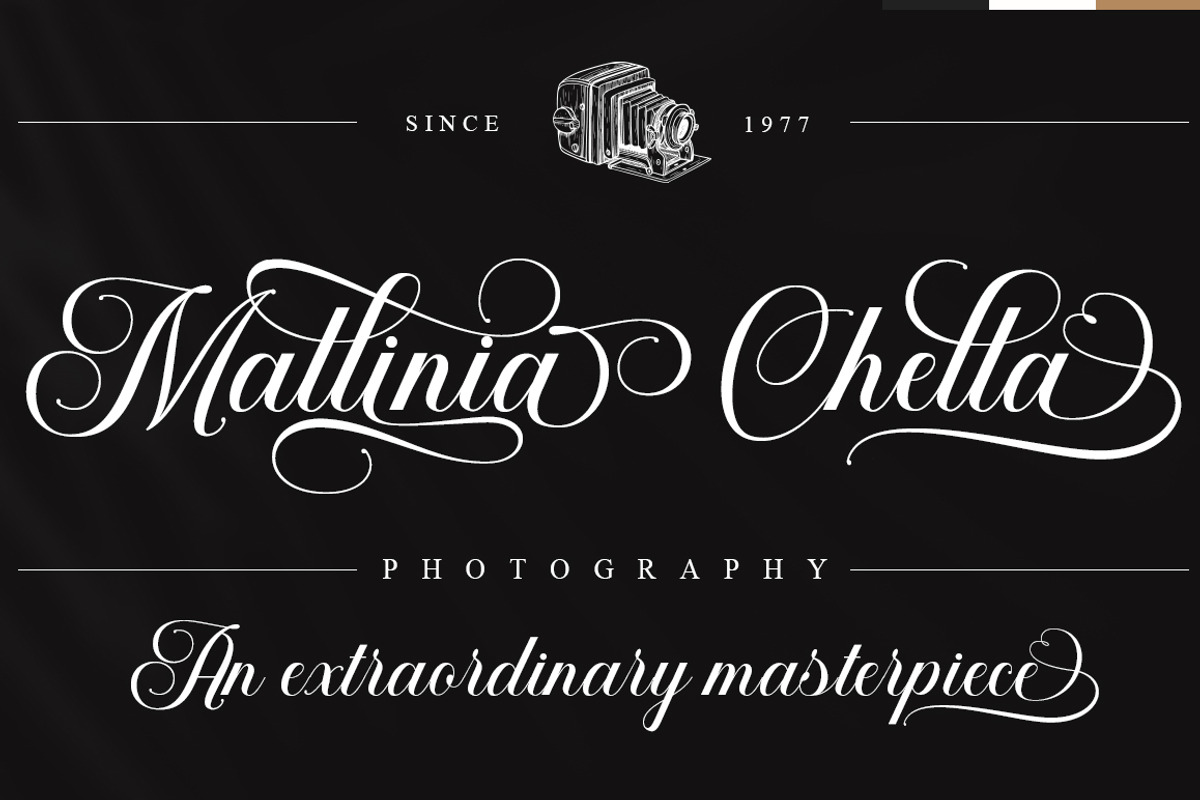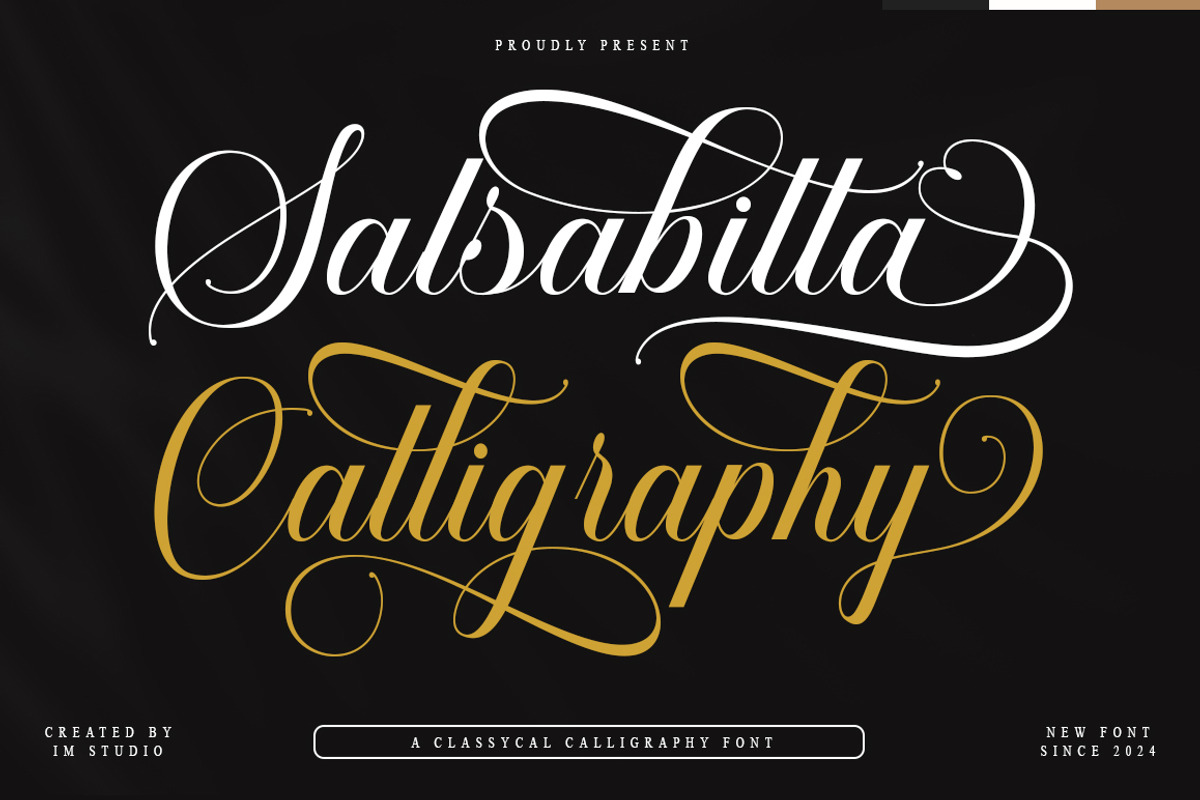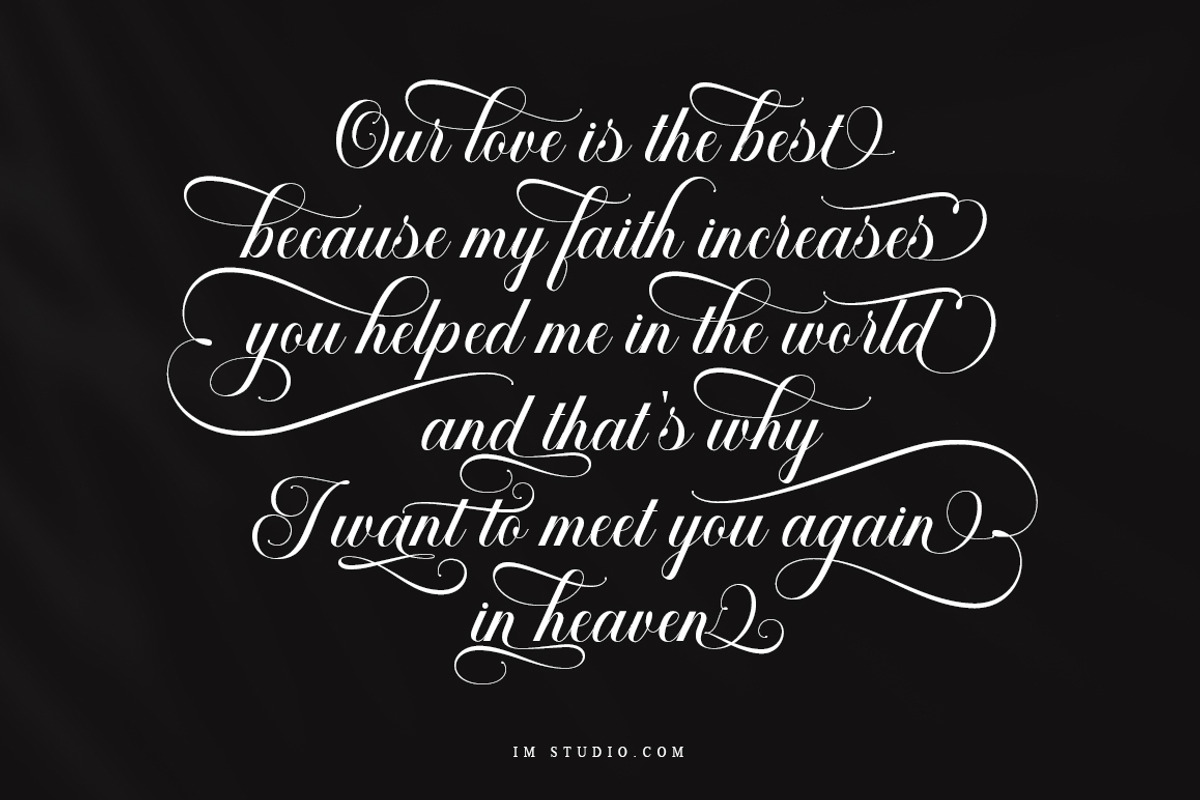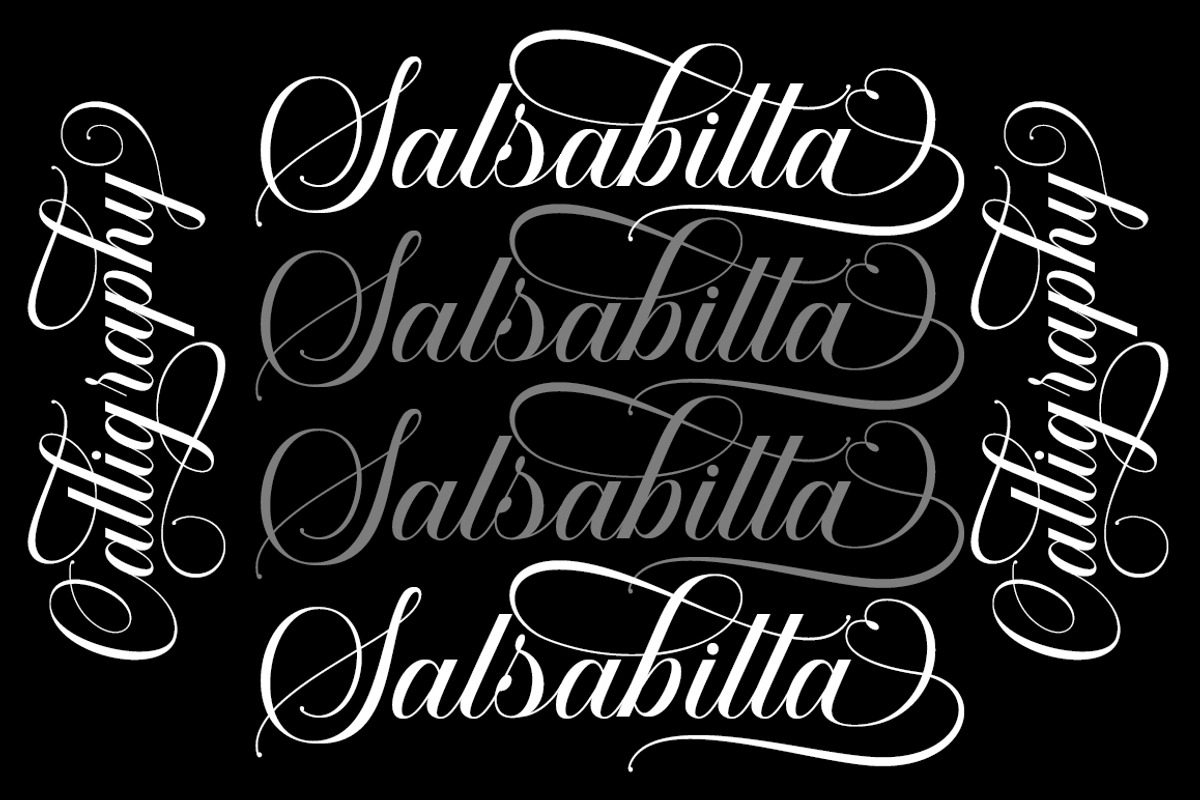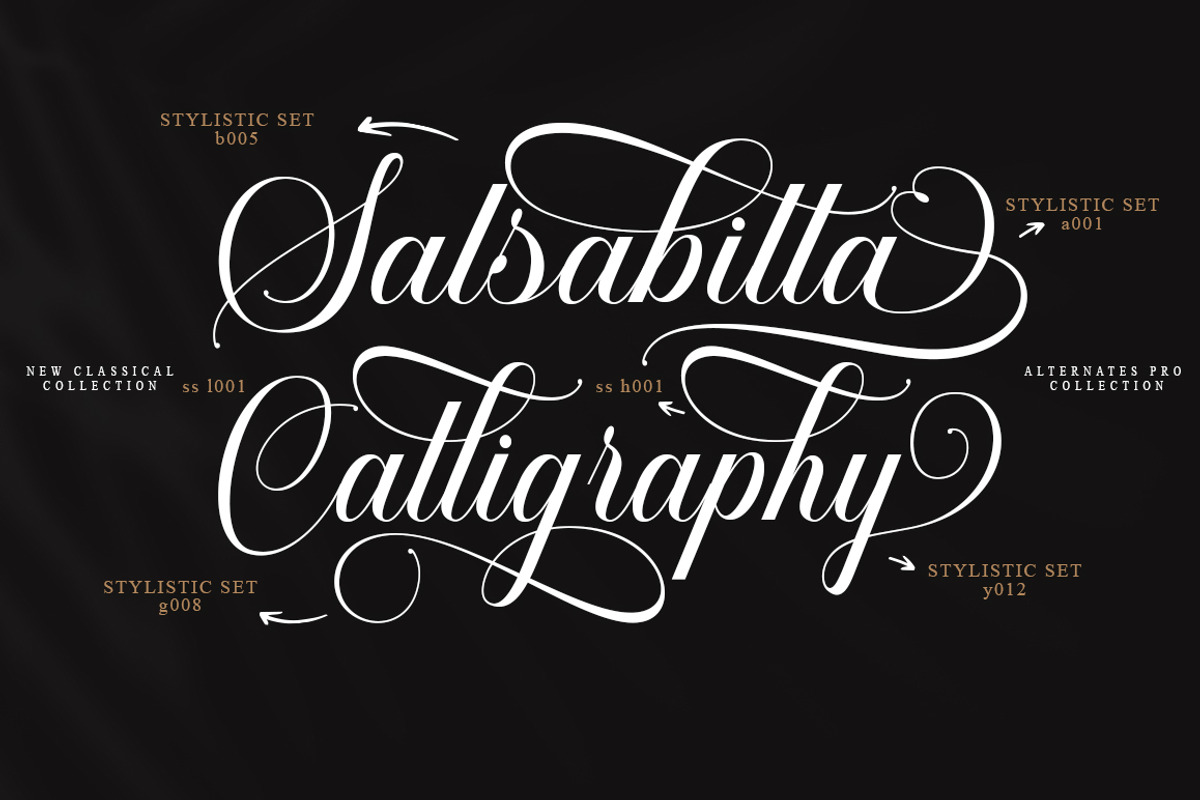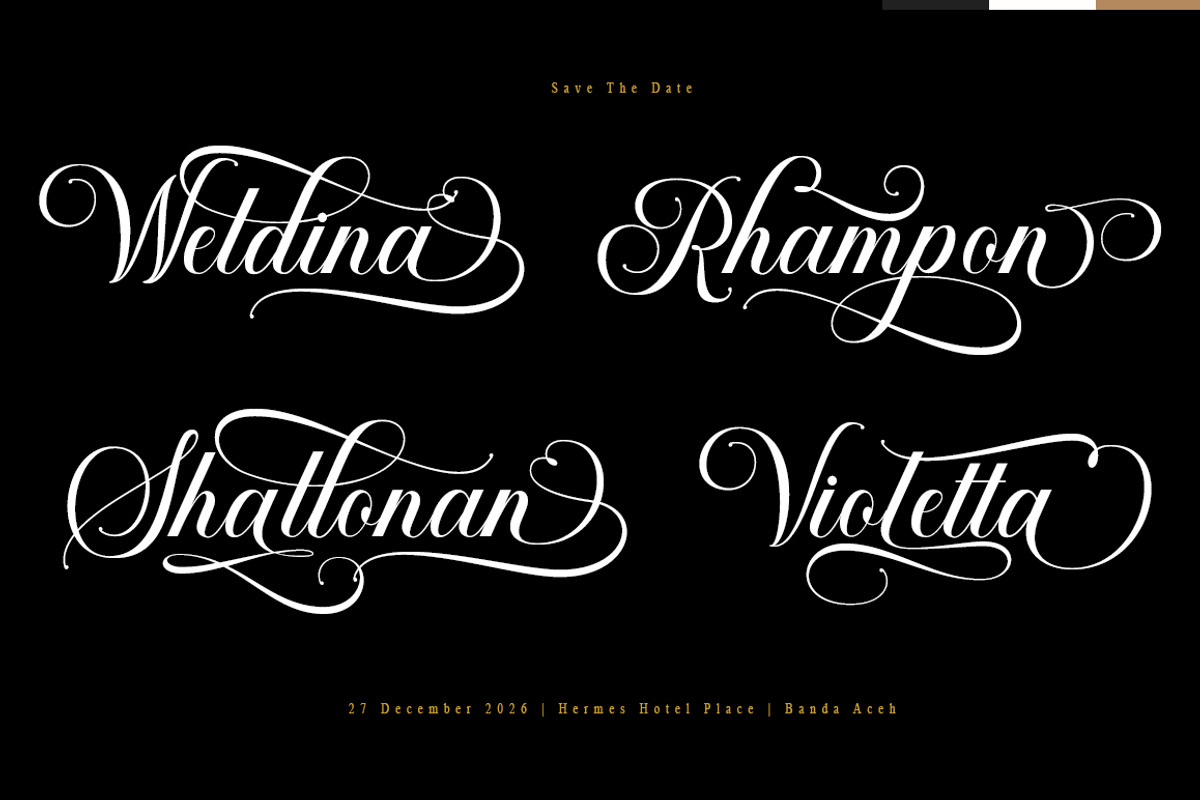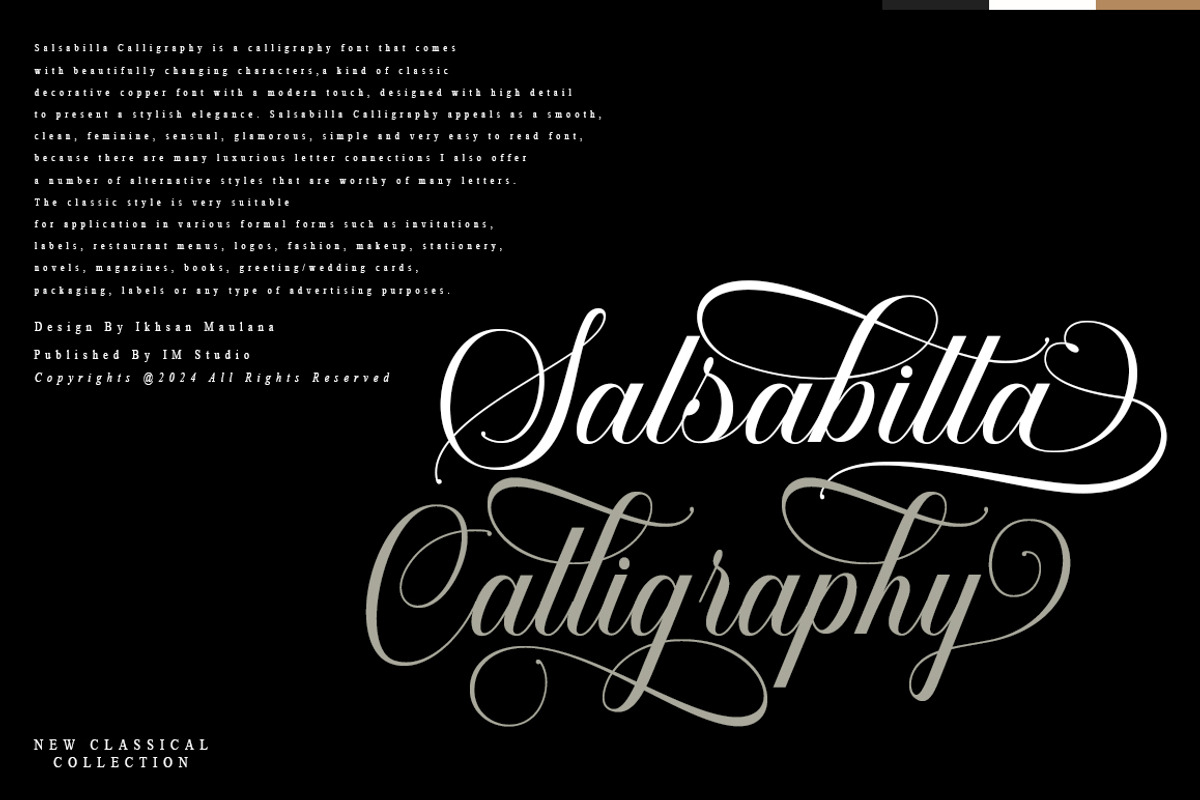
Salsabilla Calligraphy
Salsabilla Calligraphy is a calligraphy font that comes with beautifully cursive characters, a kind of classic decorative copperplate script with a modern touch, designed with high detail to bring a stylish elegance. Salsabilla Calligraphy appeals as a typeface that is smooth, clean, feminine, sensual, glamorous, simple and very easy to read, because there are many luxurious letter connections. I also offer a number of decent style alternatives for many letters. The classic style is perfect for application in various formal forms such as invitations, labels, restaurant menus, logos, fashion, makeup, stationery, novels, magazines, books, greeting/wedding cards, packaging, labels or any type of advertising purposes.